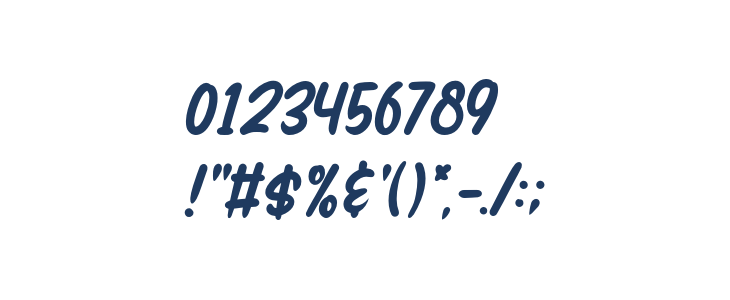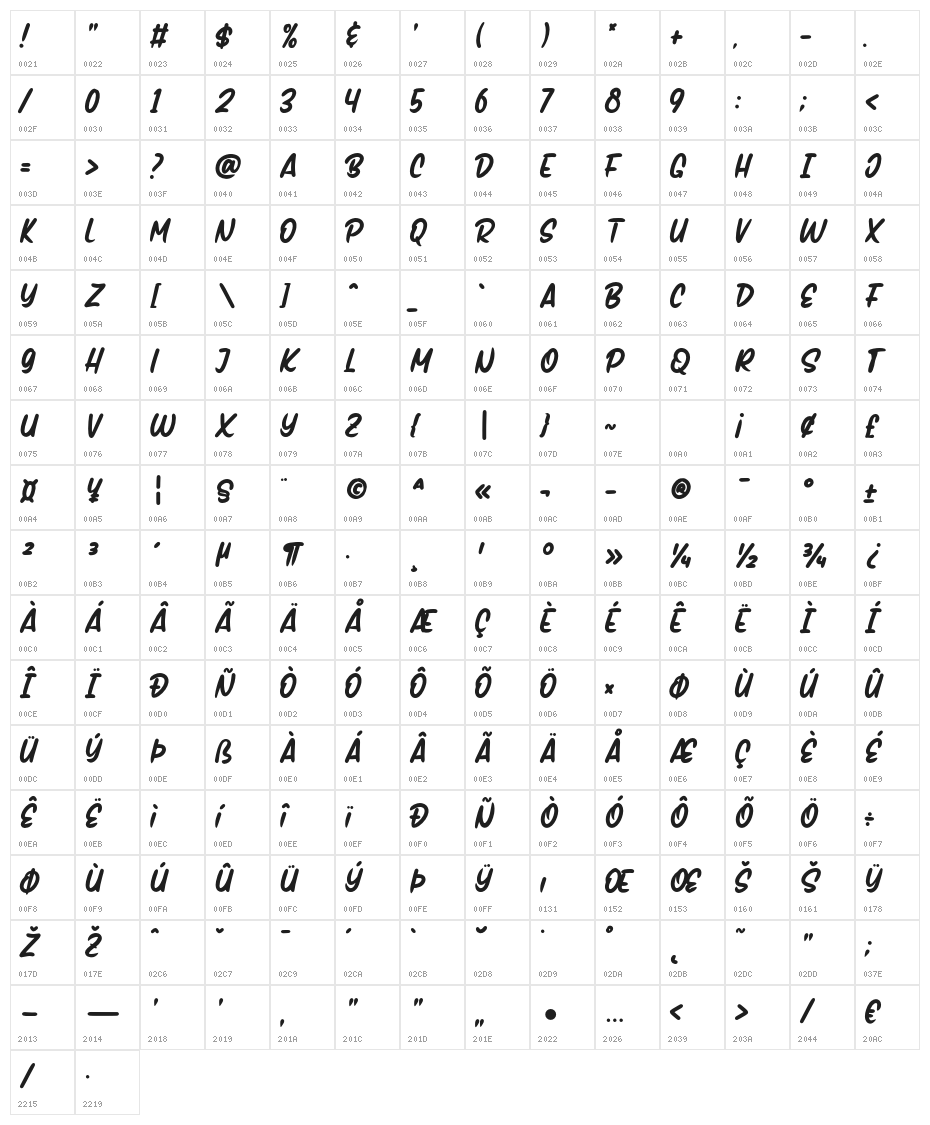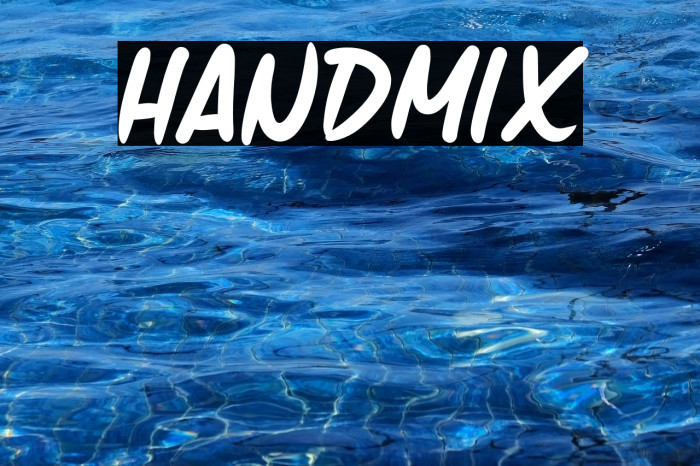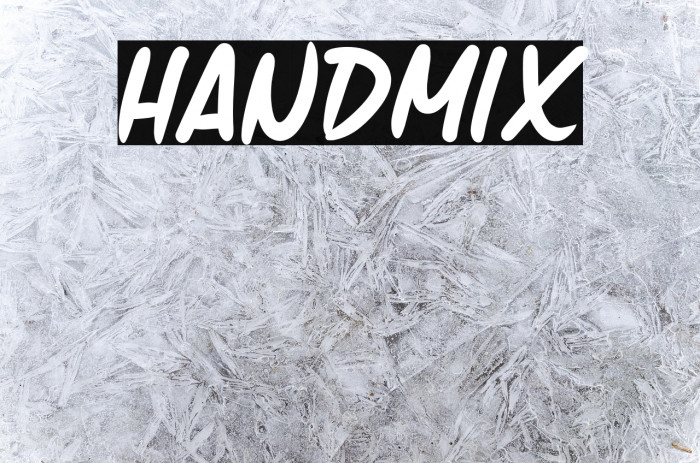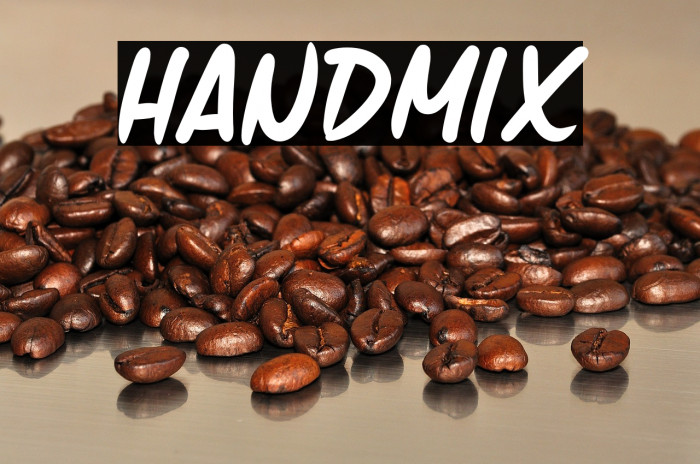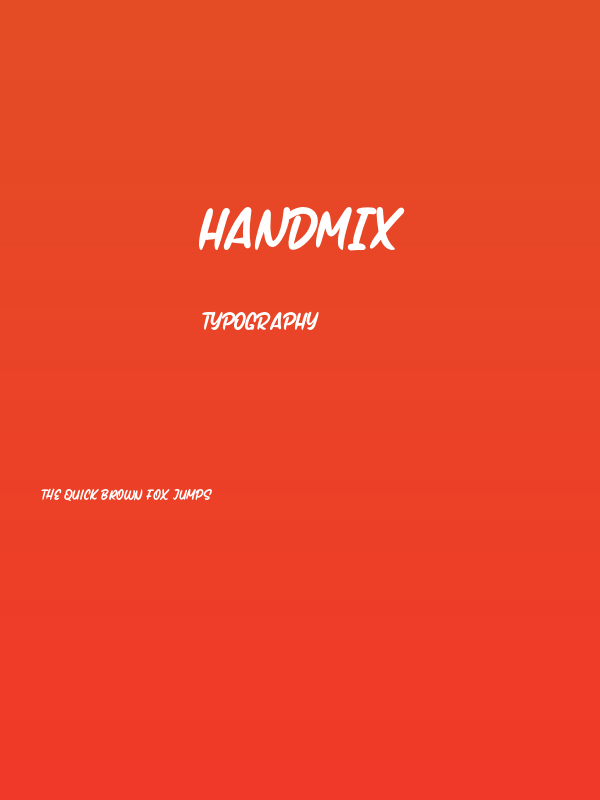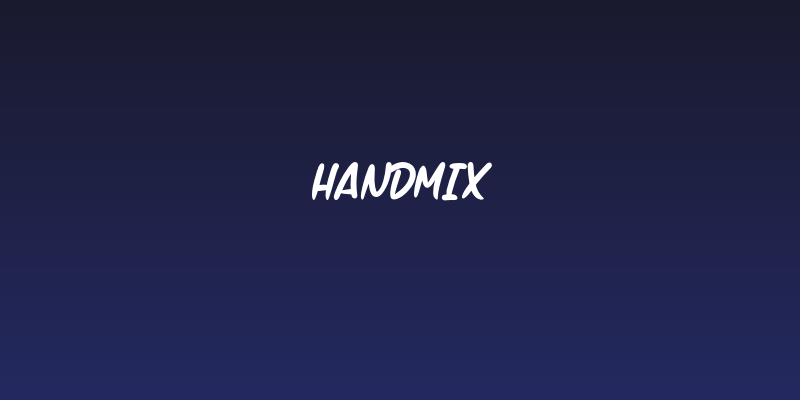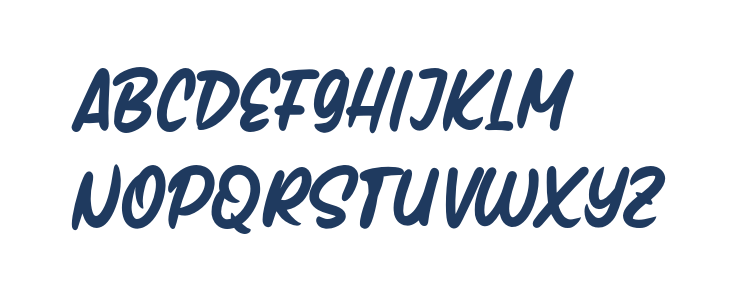
Handmix Font
Handmix Description
This font features a bold, handwritten style with smooth, flowing curves and a casual, energetic feel. The letters are slightly slanted, giving it a dynamic and lively appearance. The strokes are thick and consistent, providing a strong presence on the page. The uppercase and lowercase letters maintain a cohesive look, while the numerals and special characters complement the overall style. This font is ideal for projects that require a personal touch or a sense of informality.
| Overall Style | Casual and Energetic |
| Proposed Projects | Perfect for greeting cards, invitations, posters, and branding projects that require a personal and informal touch. |